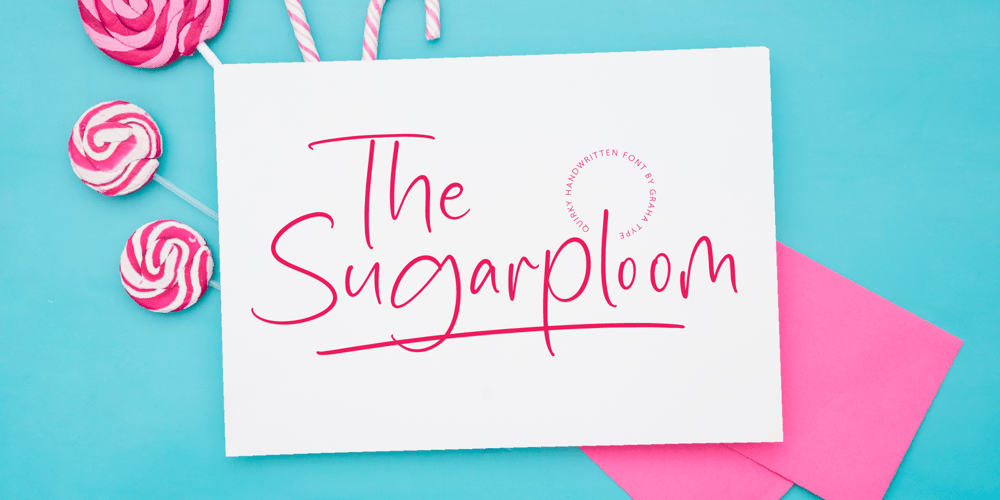
The Sugarploom
The Sugarploom font
The Sugarploom Font Family was designed by Toni Nugraha and published by Graha Type. The Sugarploom contains 1 styles and family package options. The Sugarploom is a unique handwritten font that beautifully combines simplicity with elegance and charm. Its distinctive shapes and playful ligatures elevate your designs, adding a warm and inviting touch. This versatile font is perfect for a variety of applications, including logos, quotes, invitations, and much more. Whether you’re aiming for a casual vibe or a sophisticated look, The Sugarploom can enhance your projects with its delightful character and stylish flair.Whats Included :Standard GlyphsAlternates and LigaturesPUA Encoded CharactersMultilingual SupportFeel free to email us at grahatype@gmail.com if you have any questions or require assistance. We look forward to helping you with your design needs!